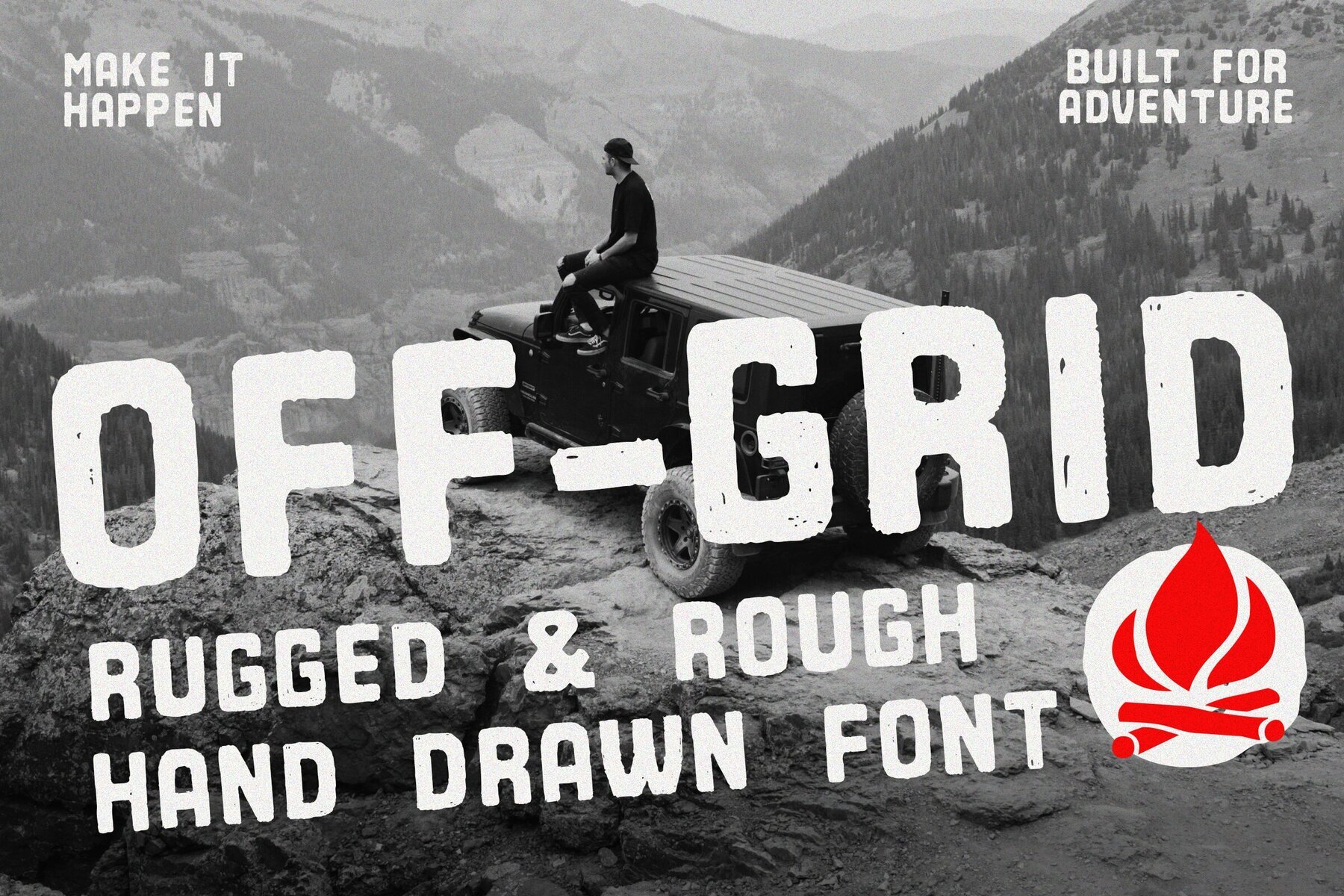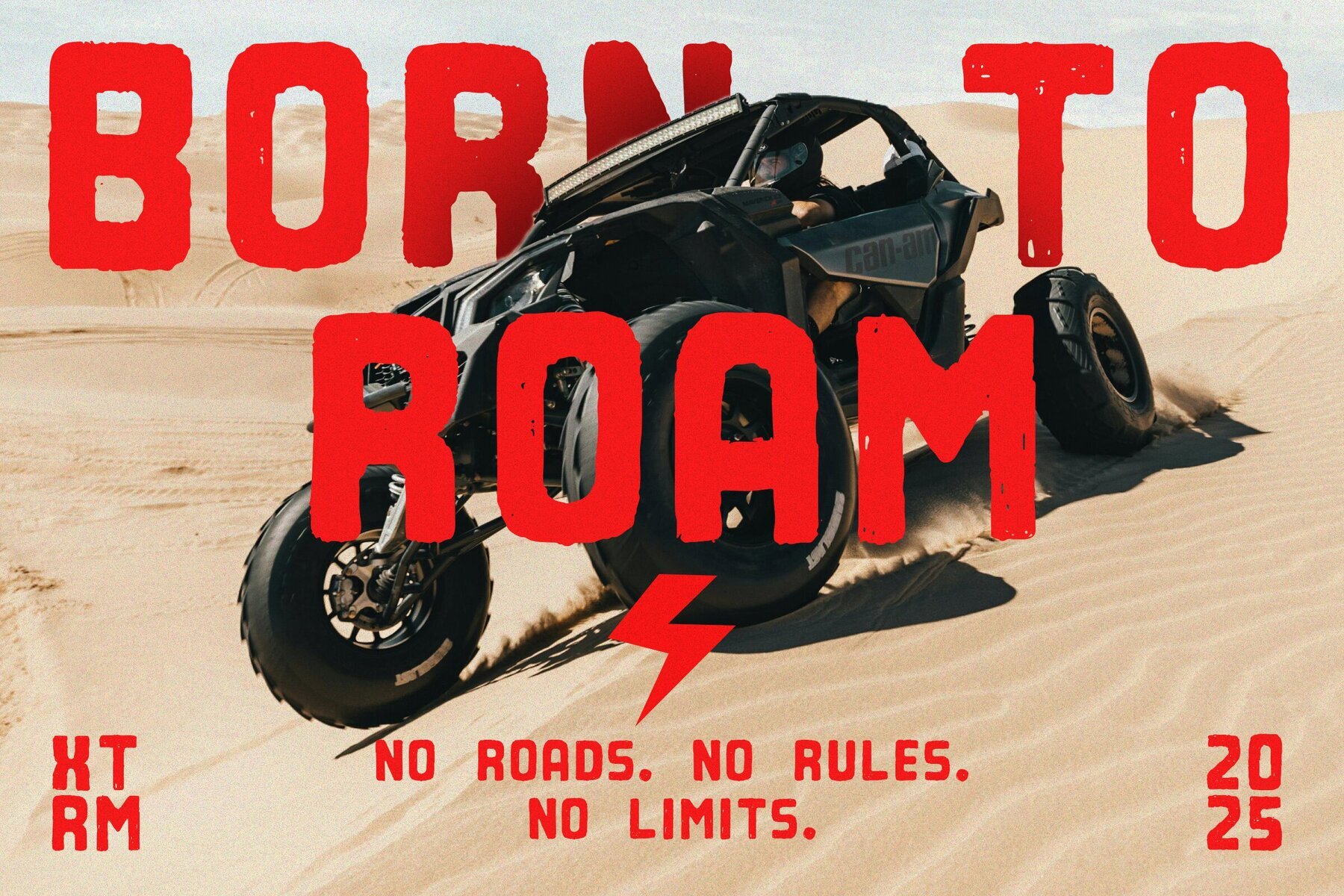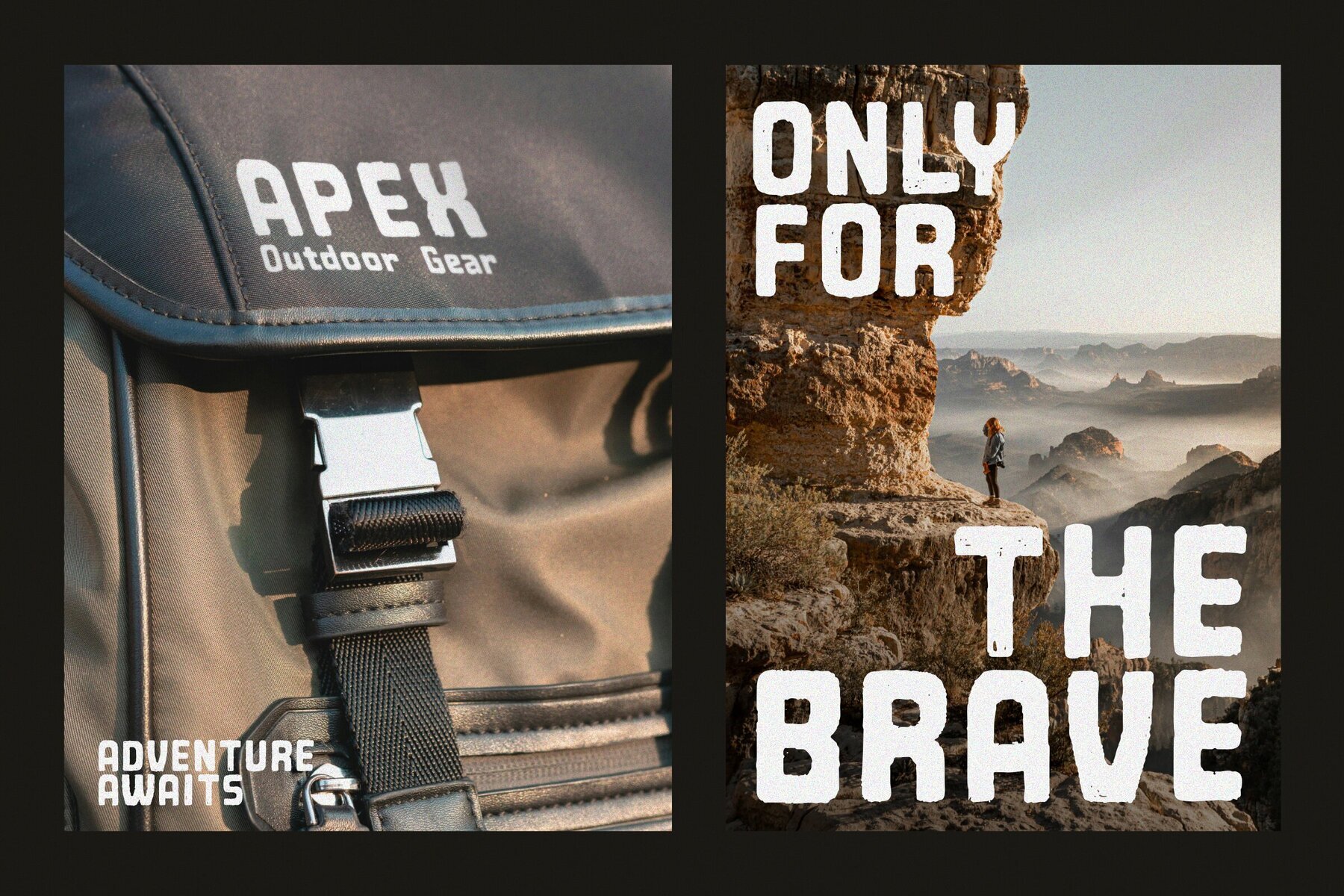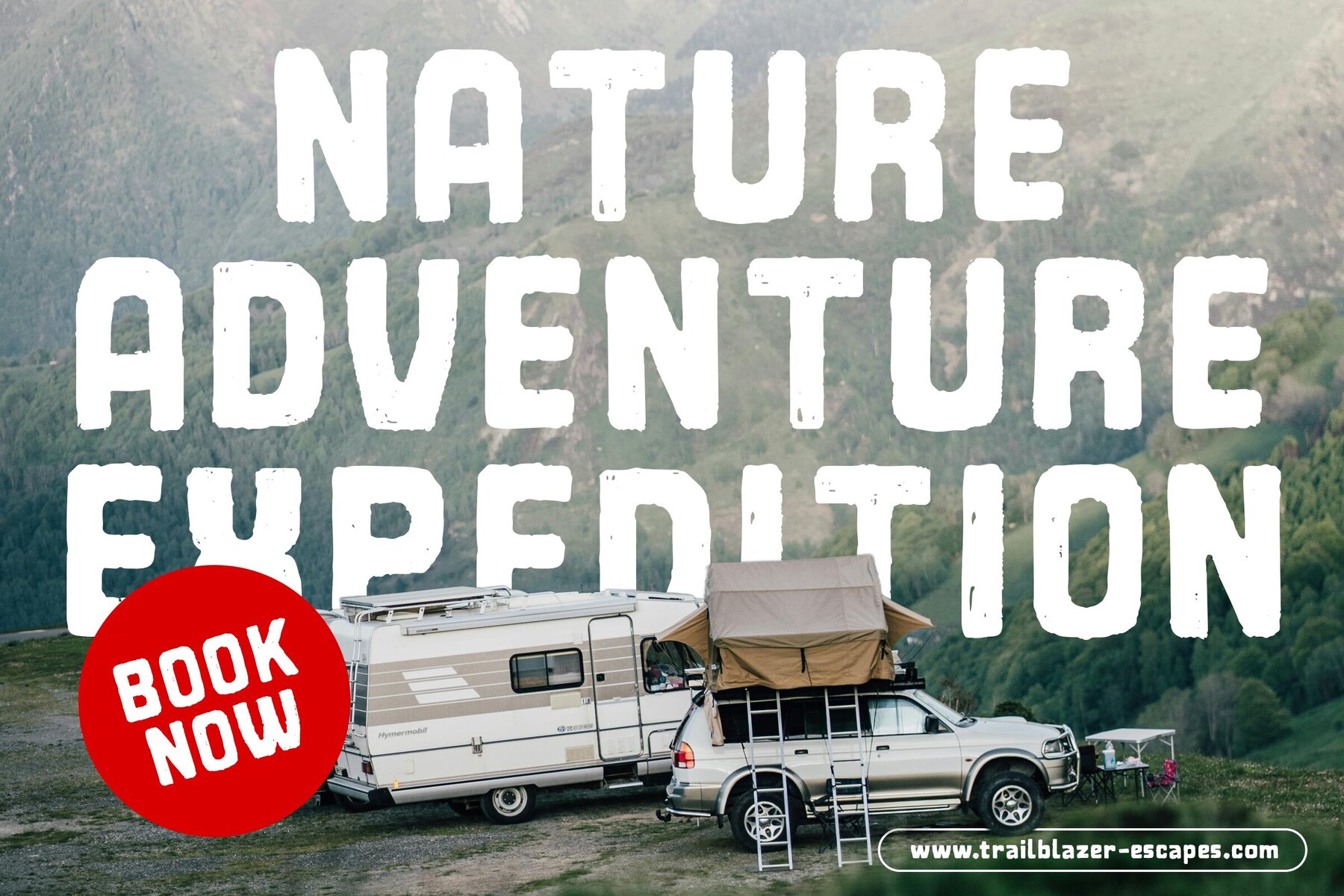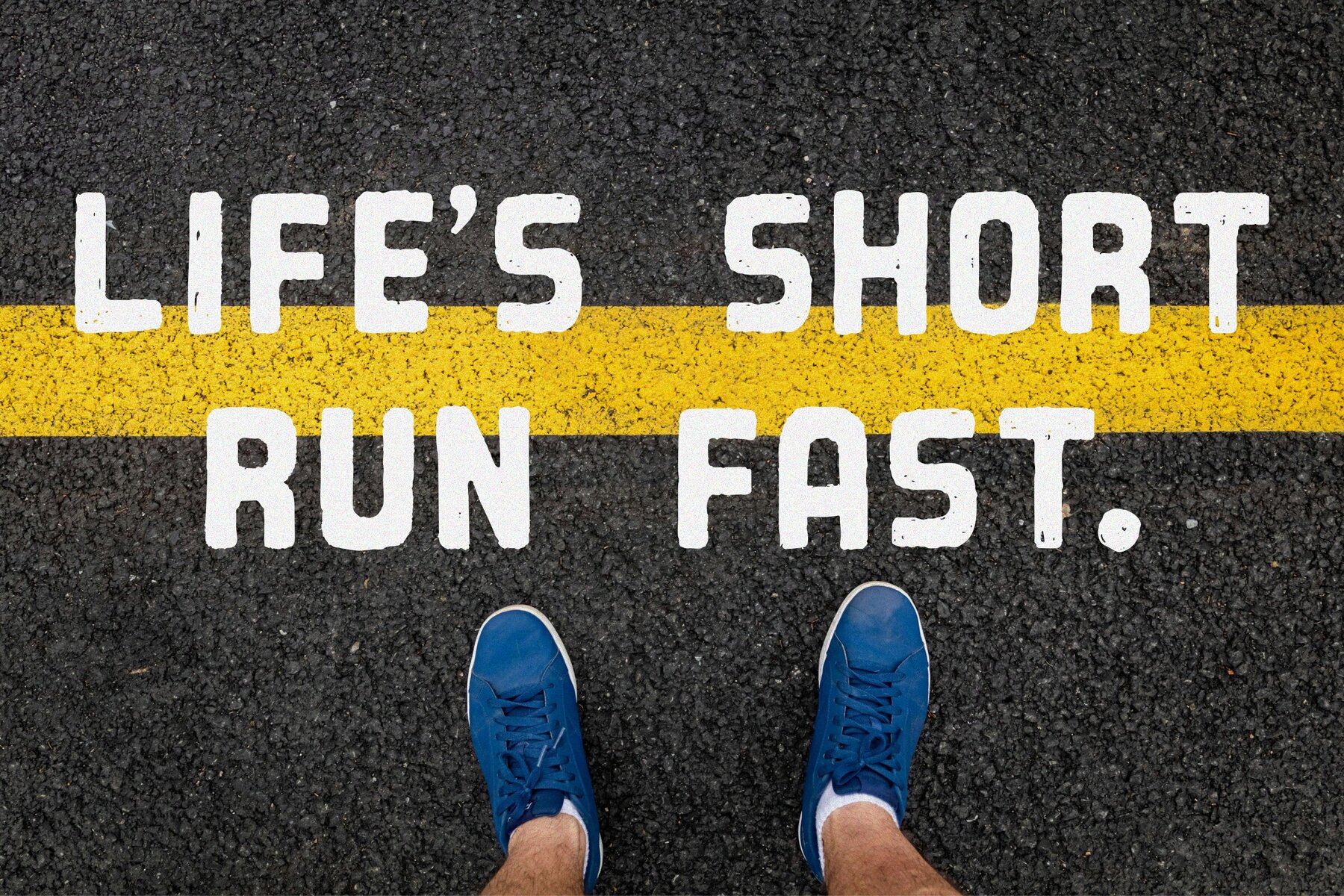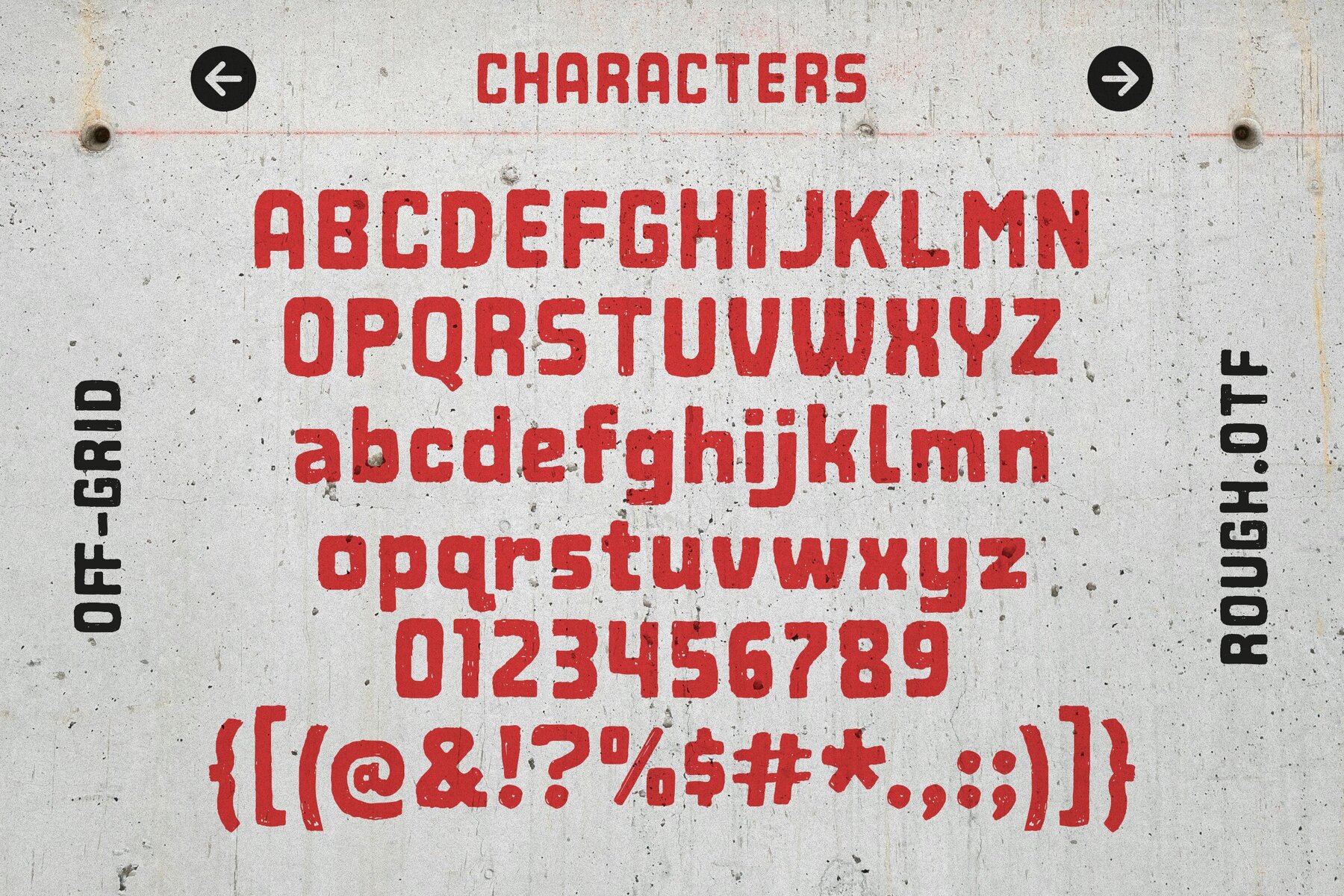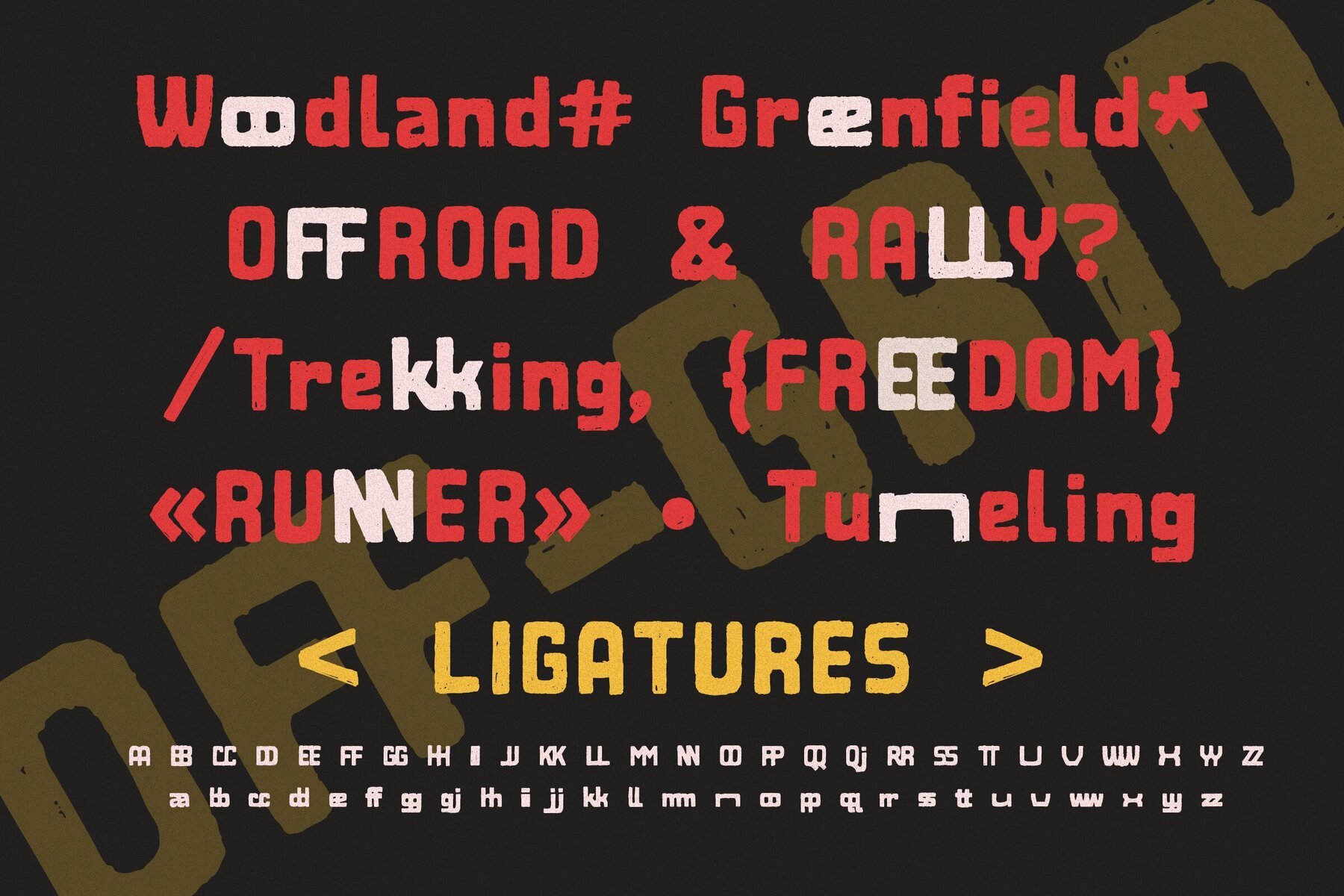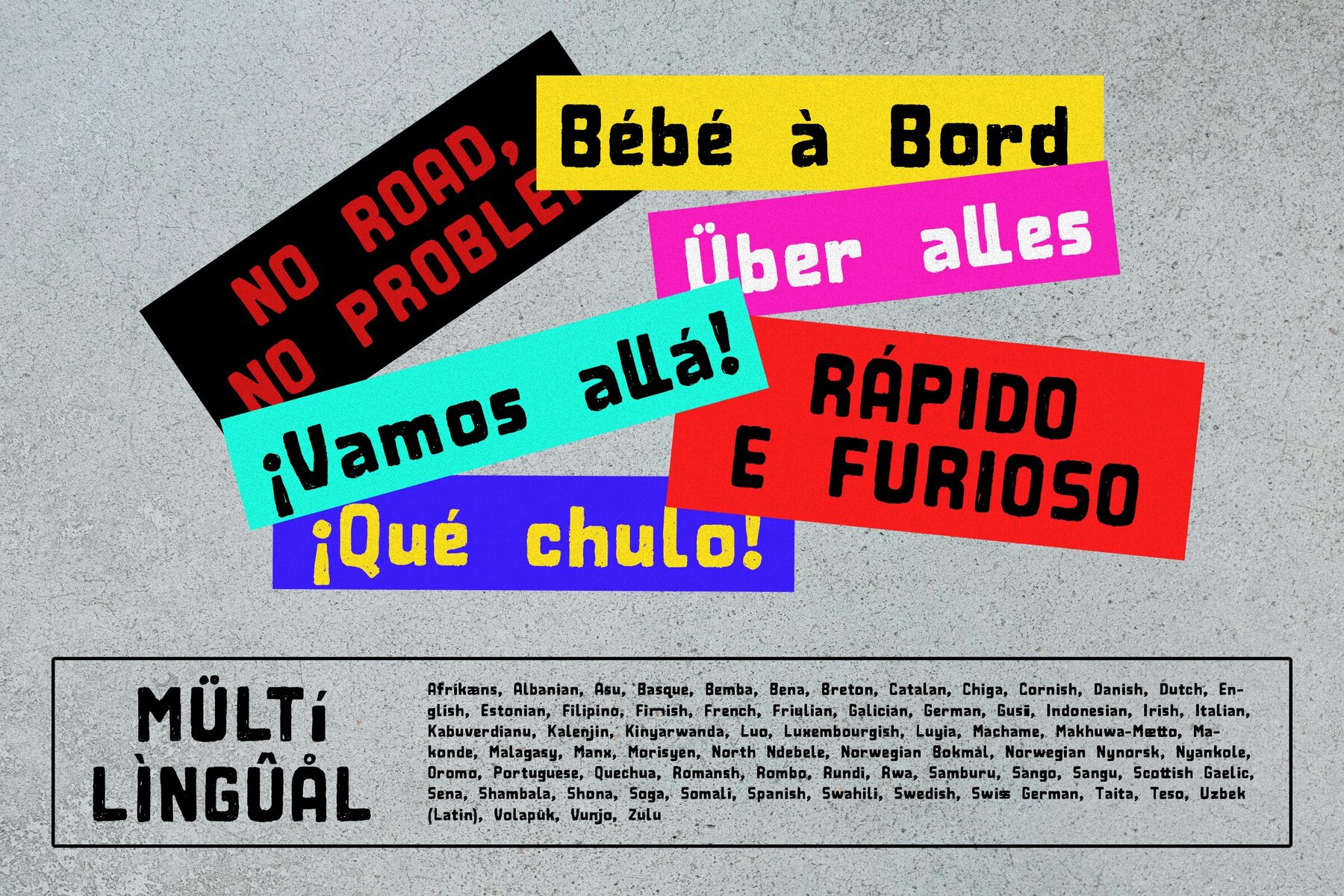
Off-Grid Font
Off Grid Rough
Embrace the untamed spirit of the outdoors with Off-Grid, a rugged hand-drawn sans serif typeface. Designed for those who venture beyond convention, it delivers raw energy and bold simplicity to outdoor-inspired branding and design. Perfect for adventure gear branding, travel blogs, eco-friendly packaging, and lifestyle apparel, Off-Grid adds grit and personality without complicating your visual layout. Whether crafting a message that needs a natural touch or a daring tone, Off-Grid is your choice. Its rough edges and organic feel give every character a sense of individuality, ensuring your brand stands out with a down-to-earth yet adventurous vibe.Capture the Wild with Off-Grid
Features of Off-Grid